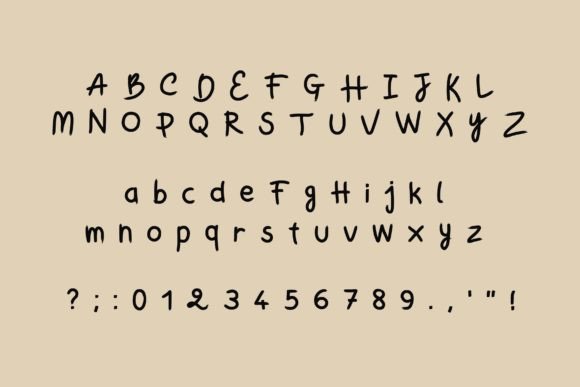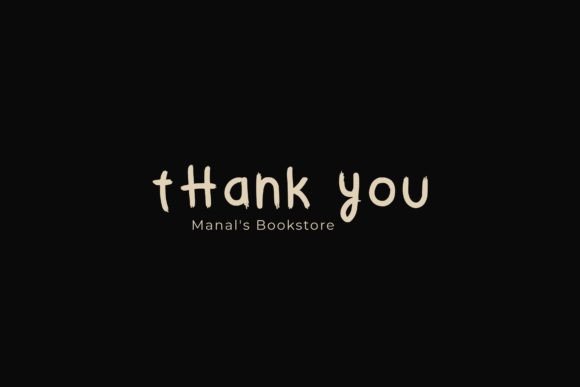
Introduction to New Life Font
Have you ever stared at a blank page, trying to find the perfect font to bring your creative project to life? It’s that moment of hesitation, where the perfect phrase or sentence is waiting to be written, but the font just isn’t right. Well, say hello to your new design best friend – the New Life Font. This quirky handwritten font is here to breathe new life into your next creative endeavor.
Whether you’re a seasoned designer or just starting out, the New Life Font is a valuable resource that’s sure to elevate your designs. With its high-quality, unique aesthetic, this font is perfect for adding a touch of personality to your projects. Plus, with a transparent background, it’s easy to pair with any design element, making it a versatile choice for any creative project.
Key Features of New Life Font
- High-quality, free font perfect for creative projects requiring a unique touch.
- Transparent background, allowing for seamless integration into any design.
- Includes a comprehensive character set, covering Latin and Cyrillic alphabets, making it suitable for diverse design applications.
- Designed with a modern aesthetic, ideal for use in digital and print media, including logos, branding, and advertising materials.
- Supports high-resolution displays, ensuring crisp and clear rendering of the font at various sizes and resolutions.
Honest Review: New Life Font
- The New Life Font has a beautiful, high-quality design that’s perfect for creative projects.
- The font has a transparent background, allowing for easy layering and design flexibility.
- The font’s design, while beautiful, may not be suitable for all types of projects (e.g., body text).
Overall, I’m impressed with the New Life Font’s design and potential. While it may have some limitations, it’s a great resource for designers looking for a high-quality, creative font for their projects. With a little creativity and planning, this font can be a valuable addition to any design arsenal.
Tips for Getting the Most Out of New Life Font
For optimal results, use the New Life Font in conjunction with other design resources, such as graphics and images. Experiment with different font sizes, colors, and styles to create a unique look. You can also use the font in conjunction with a free download of a matching graphic element.
The New Life Font is perfect for a wide range of creative projects, including blog posts, social media graphics, and business presentations. Its high quality and versatility make it an ideal design resource for anyone looking to add a touch of elegance to their work.